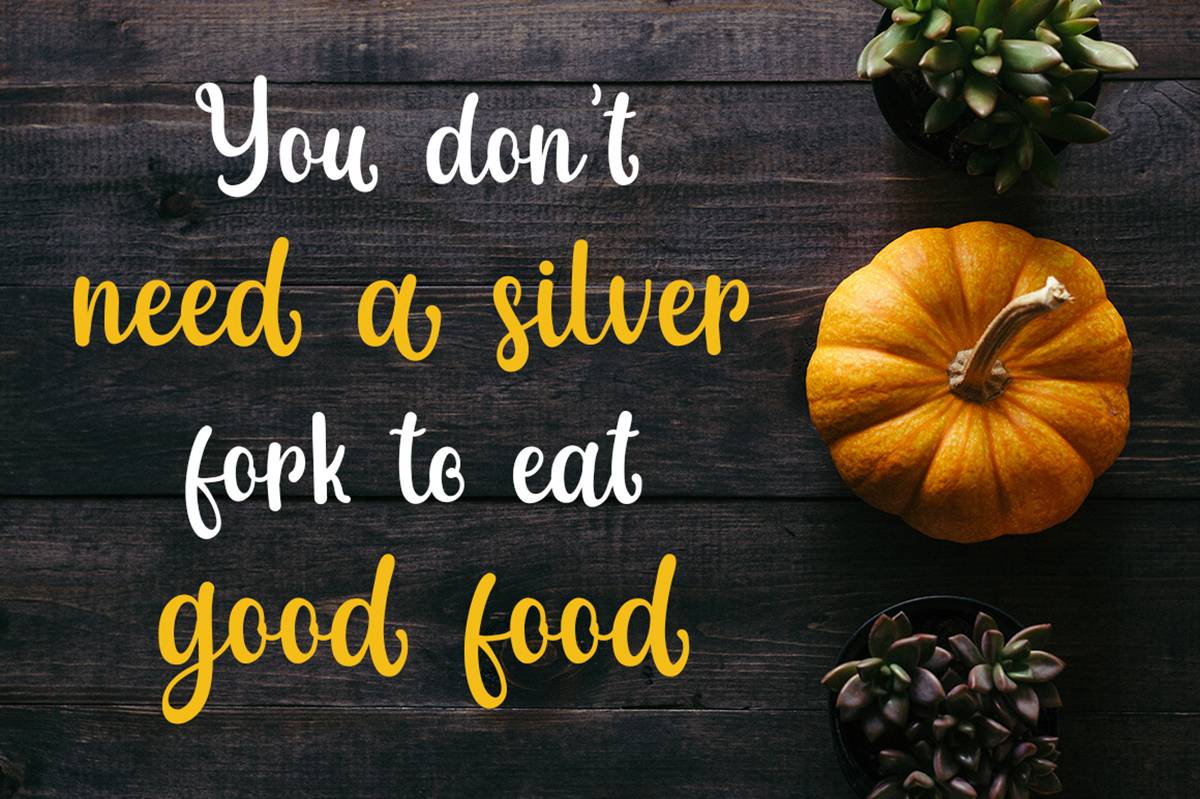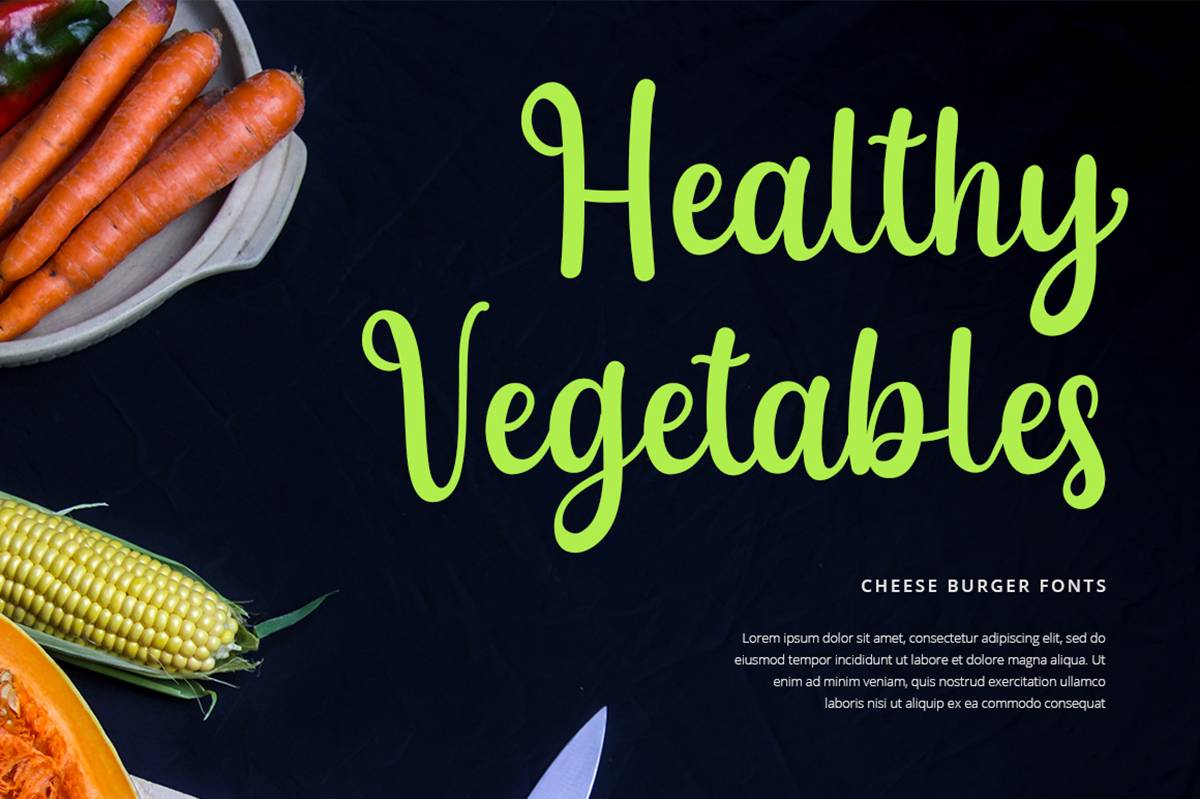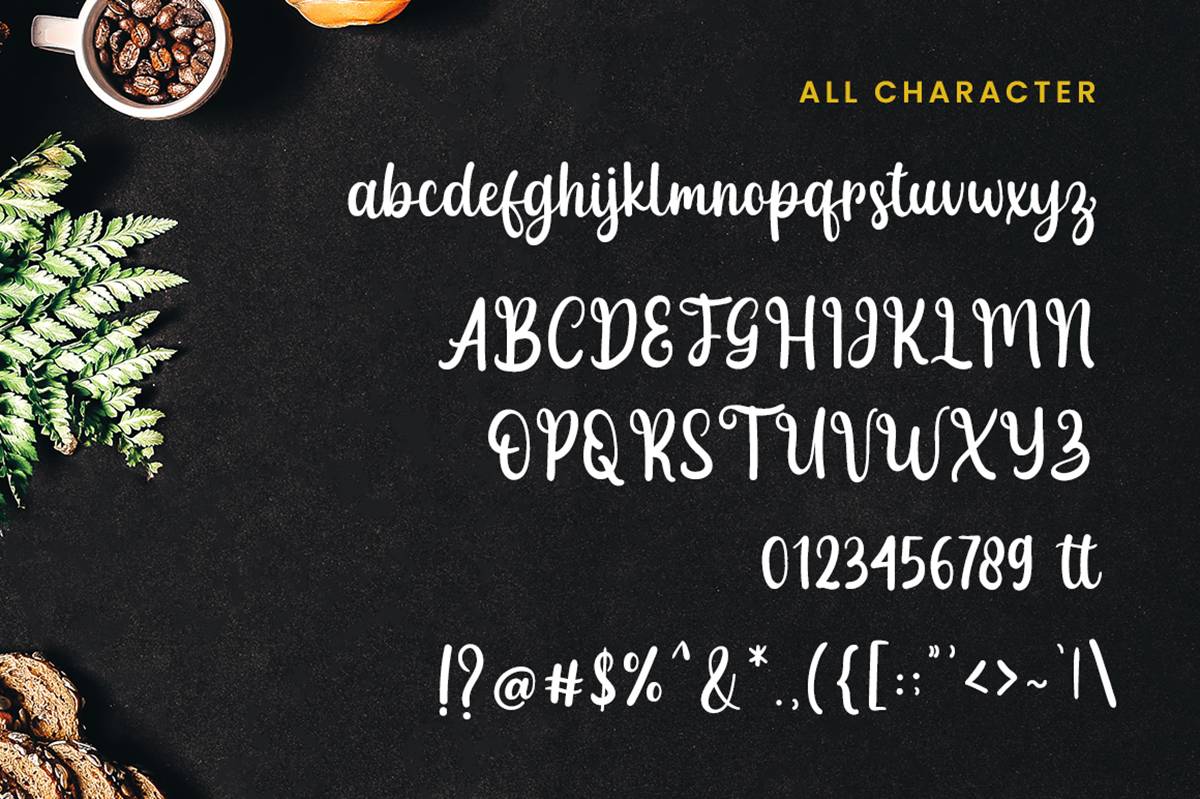
Cheese Burger is a playful script font with a casual, handwritten style, featuring smooth, rounded strokes and lively, whimsical letterforms. It offers an inviting and friendly vibe, making it ideal for creative branding, packaging, and fun editorial projects where a warm, approachable personality is desired. Its balanced legibility and quirky charm work well for headlines and informal uses, bringing energy and character to any design.
Cheese Burger Font
About Cheese Burger Font
| Font family | Cheese Burger Font |